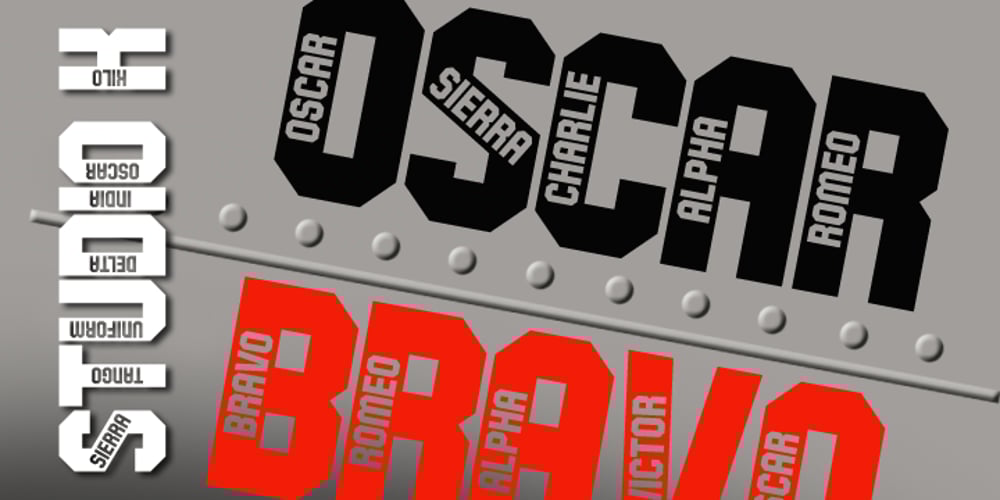
Oscar Bravo Font Family was designed by Keith Tricker and published by Studio K. Oscar Bravo contains 6 styles and family package options. This font family was inspired by a visit to the Duxford Air Museum just outside of Cambridge, UK, where the whole history of aviation is represented in a series of exhibits ranging from early prop planes to supersonic jetliners. A common feature is the clipped, blockletter painted on the wing or fuselage of each aircraft, my interpretation of which I present here. To add an original touch each letter incorporates its designation in the NATO phonetic alphabet. In response to popular demand this font is now available in ‘Scotch’ and ‘Irish’ versions. If you take your whiskey with an ‘e’ choose Oscar Bravo Whiskey. If you prefer it neat, choose Oscar Bravo. And no, I am not going to bring out an Oscar Bravo Bourbon version! For variations on this font family see also Alma Mater.